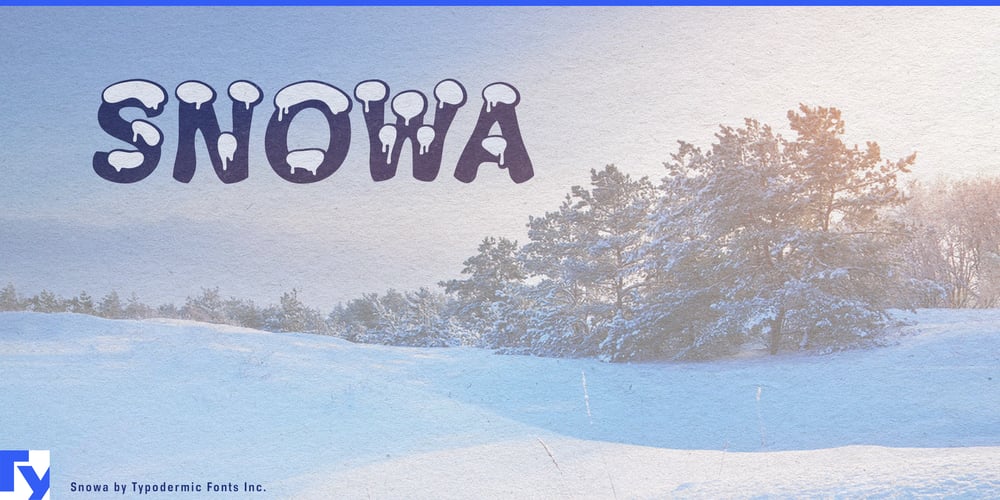
Snowa Font Family was designed by Ray Larabie and published by Typodermic. Snowa contains 4 styles and family package options. Step into a world where letters shimmer with the magic of a winter’s first snowfall. Snowa is an invitation to a typographic winter wonderland, where each character is a miniature ice sculpture, perfectly formed and glistening with possibility.Imagine your words dressed in their winter finest, each letter crowned with a delicate cap of snow. Snowa captures the essence of those crisp, silent mornings when the world is blanketed in white, bringing that same sense of wonder and tranquility to your designs. It’s more than a font; it’s a mood, an atmosphere, a visual whisper of “let it snow.” But Snowa’s true magic lies in its versatility. Like a skilled ice sculptor, you have the power to shape your snowy creations. The snowless version provides a clean base, while the independent snow layers allow you to craft your own winter scenes. Dust your letters with a light frost or unleash a typographic blizzard—the choice is yours. This isn’t just type design; it’s weather control at your fingertips.In holiday greetings, Snowa transforms simple words into heartwarming embraces. For winter event promotions, it conjures images of cozy fireplaces and steaming mugs of cocoa. Even in the height of summer, Snowa can add a refreshing chill to your designs, perfect for everything from ice cream ads to air conditioning campaigns. Snowa’s linguistic scope is as vast as a snow-covered tundra. Supporting a wide array of Latin-based European writing systems, from Afaan Oromo to Zuni, this typeface ensures your wintry message retains its magical allure across cultures. It’s not just crossing language barriers—it’s gliding over them on perfectly polished skis. Choose Snowa when you want your typography to do more than communicate—when you want it to transport, to delight, to sprinkle a little winter magic into the everyday.With Snowa, your message doesn’t just speak—it sparkles, it shimmers, it turns every project into a winter wonderland. Are you ready to let your typography play in the snow?